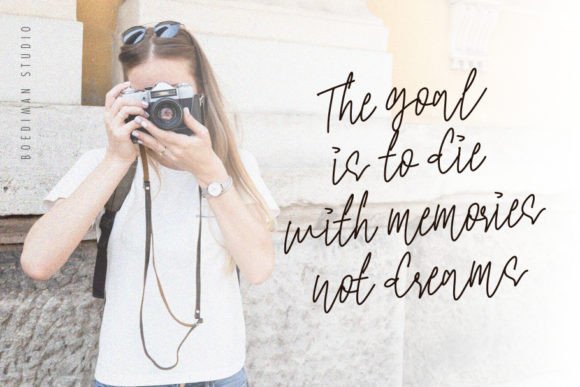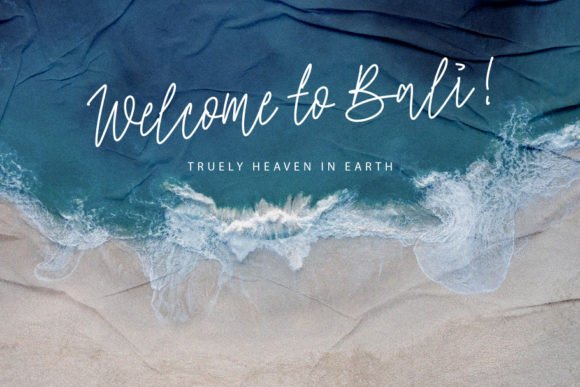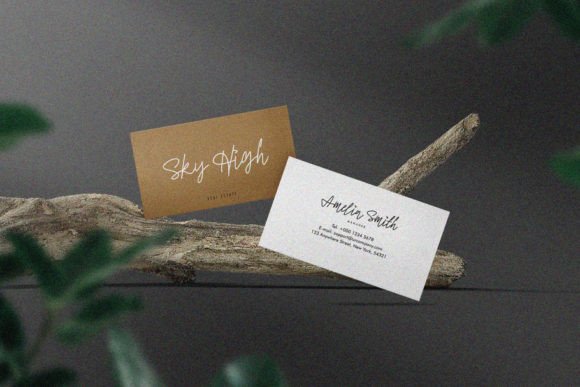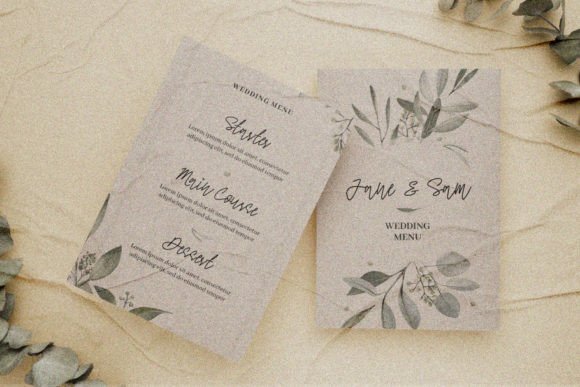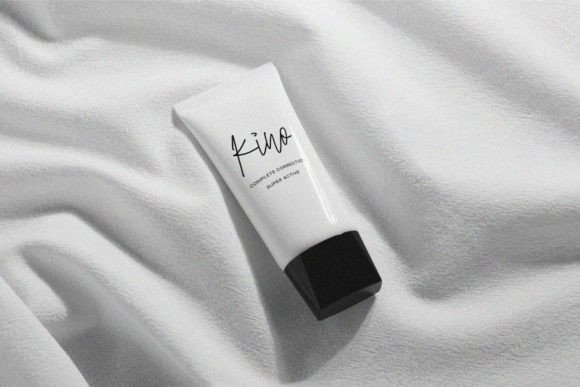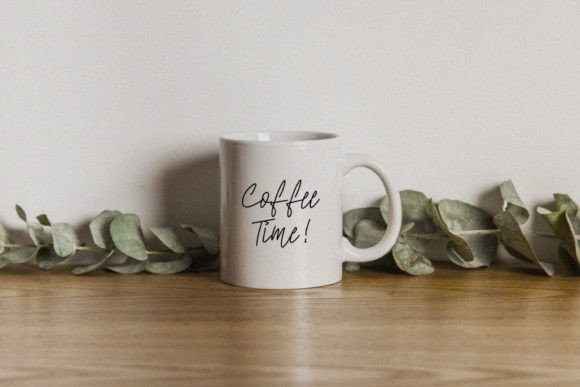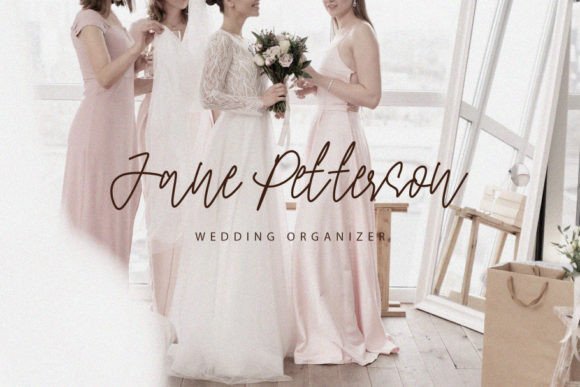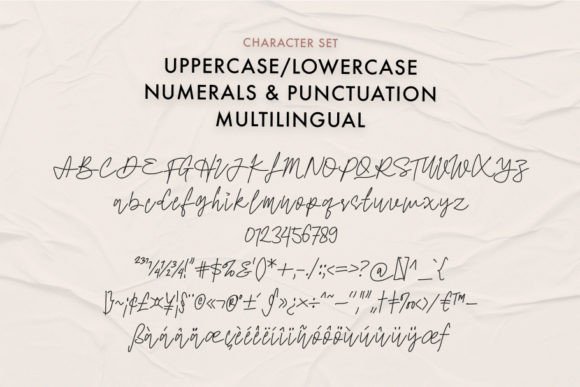
Tears of Heaven Font
About Tears of Heaven Font
**Tears of Heaven: A Dazzling Script Font**
**Tears of Heaven** is a dazzling script font that captures attention with its intricate and highly detailed design. This font is a meticulously crafted asset for your font library, capable of enhancing a wide range of creative projects, regardless of the topic or theme.
This font’s striking and detailed script letterforms make it stand out as a unique and eye-catching choice. It exudes an air of elegance and sophistication, making it a versatile option for projects that require a touch of dazzle and refinement.
**Tears of Heaven** has the potential to elevate your creations in various applications. Whether you’re working on invitations, branding, packaging, posters, or any other design project, this font adds a level of intricacy and charm to your work.
For invitations and event-related designs, **Tears of Heaven** enhances the celebratory and luxurious aspects of your projects, setting a memorable tone for special occasions.
In branding and packaging, this font ensures that your products and visual identity stand out with a sense of refinement and detail, leaving a lasting impression on your audience.
In conclusion, **Tears of Heaven** is more than just a font; it’s a design asset that brings dazzle and refinement to your creative projects. Whether you’re designing for special events, branding, or various other contexts, choose **Tears of Heaven** to infuse your work with its intricate and captivating charm. Embrace its detailed beauty, and let your creativity shine with sophistication.